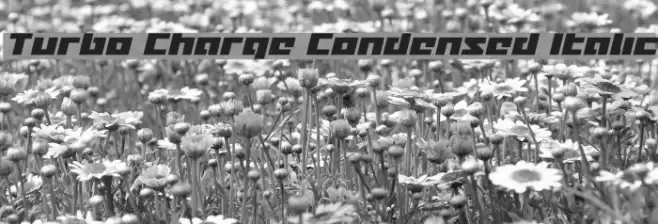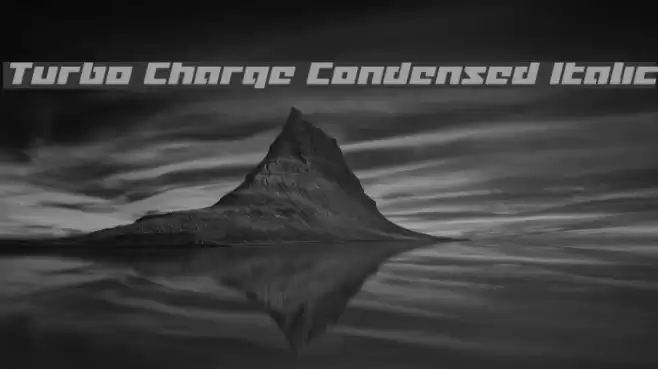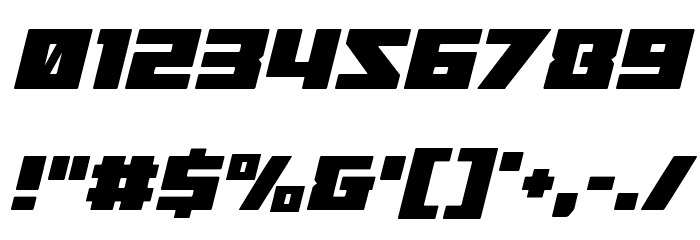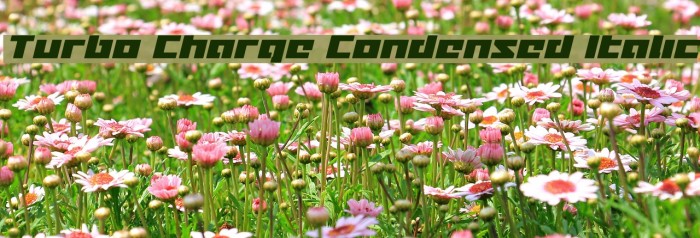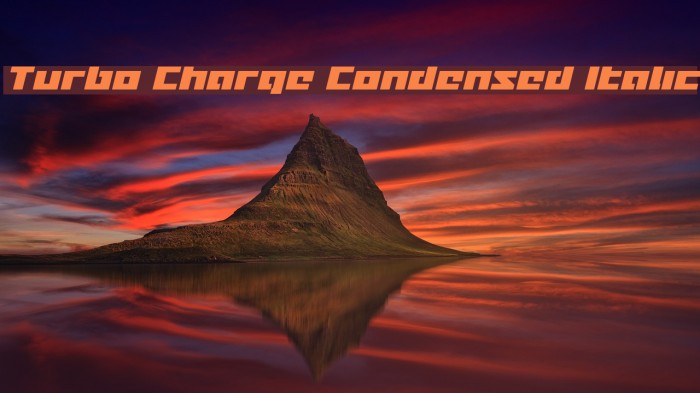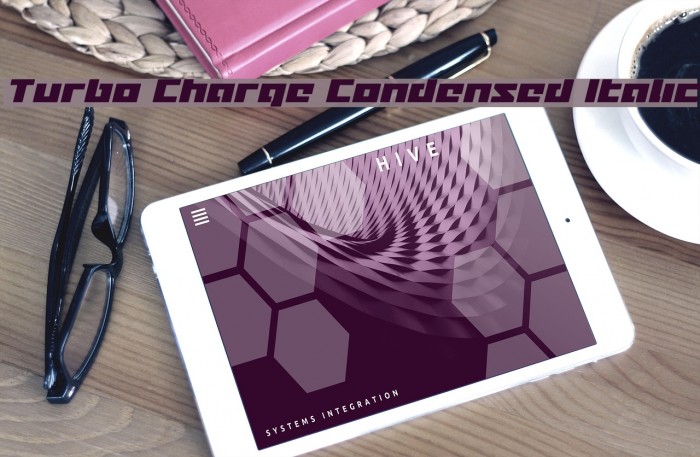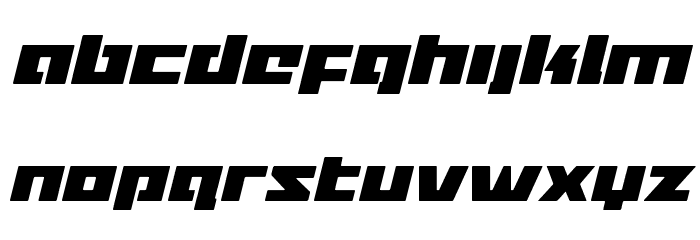
Turbo Charge Condensed Italic Font
Turbo Charge Condensed Italic Description
This font features a bold, italicized style with a condensed width, giving it a dynamic and energetic appearance. The characters are angular and geometric, with sharp edges and a futuristic feel. The uppercase and lowercase letters maintain a consistent style, with a slight slant that enhances the italic effect. The numbers and special characters are designed to match the boldness and angularity of the letters, creating a cohesive look across all glyphs. This font's strong visual impact makes it suitable for attention-grabbing designs.
A bold, italicized, and condensed font with a futuristic, angular design from Sci-fi fonts.
- Proposed Projects: Ideal for sports branding, automotive designs, video game titles, and dynamic posters.